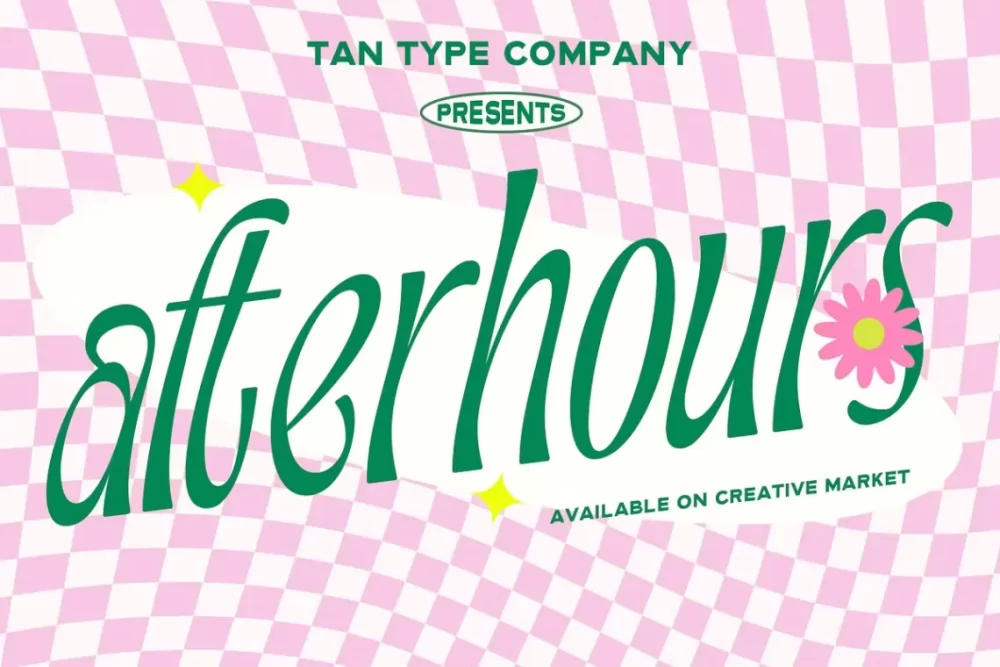
Tan – Afterhours is a fun sans serif, narrow and tall, suitable for display sans. It is a perfect choice for any creative endeavor, chic, lifestyle design such as logotype, advertisements, watermark on photography, stationery, branding projects, display and magazine, invitation, corporate brand, product design, labels, business projects and many other projects with a fun touch.